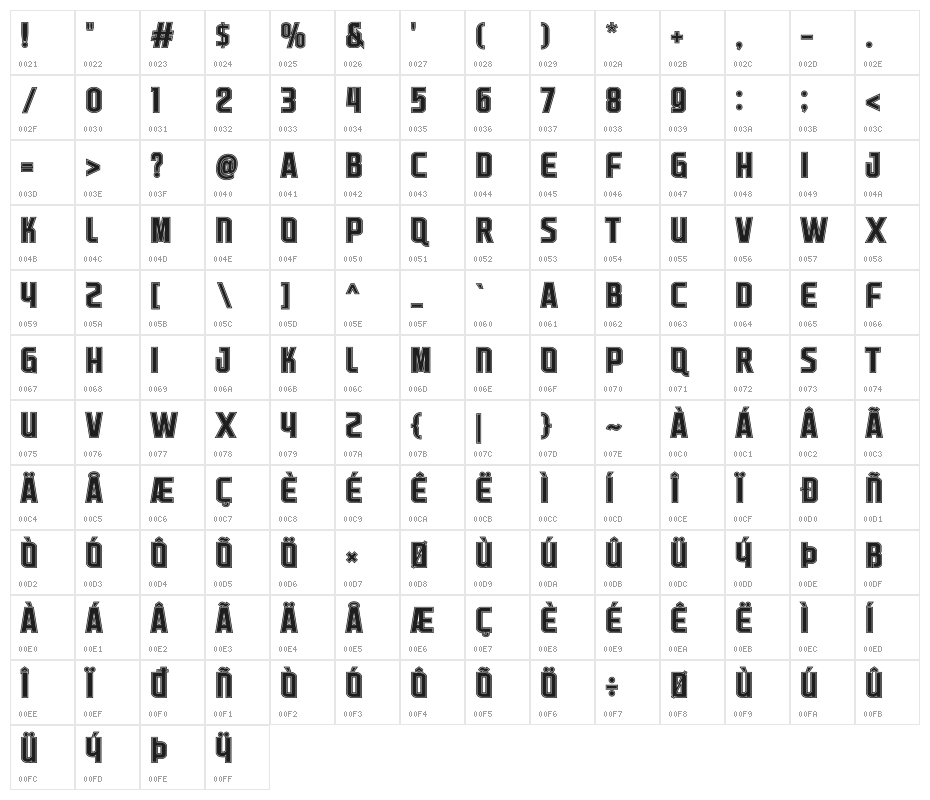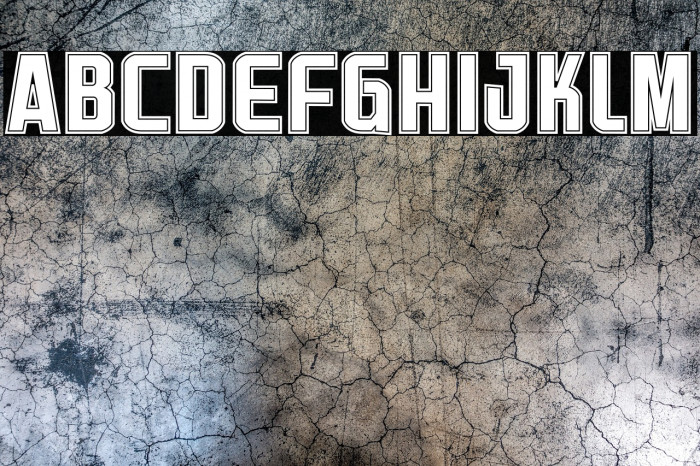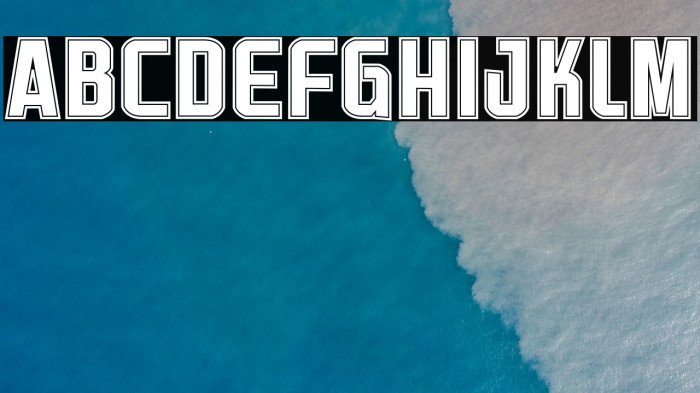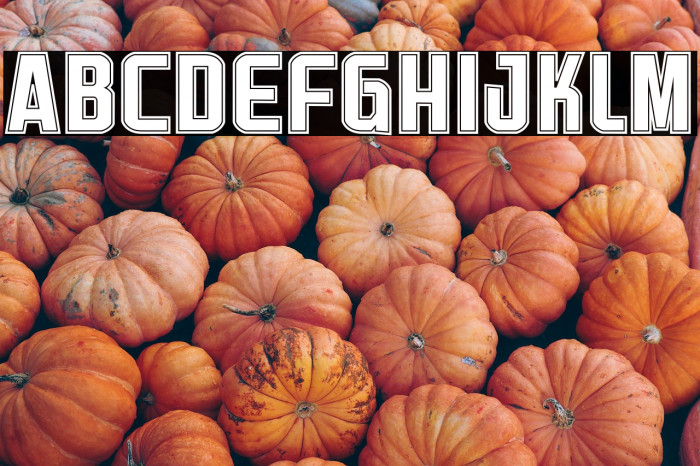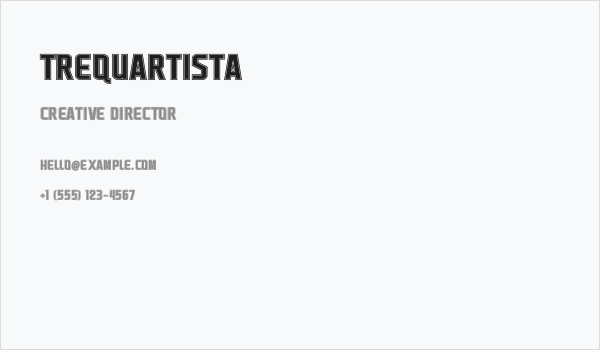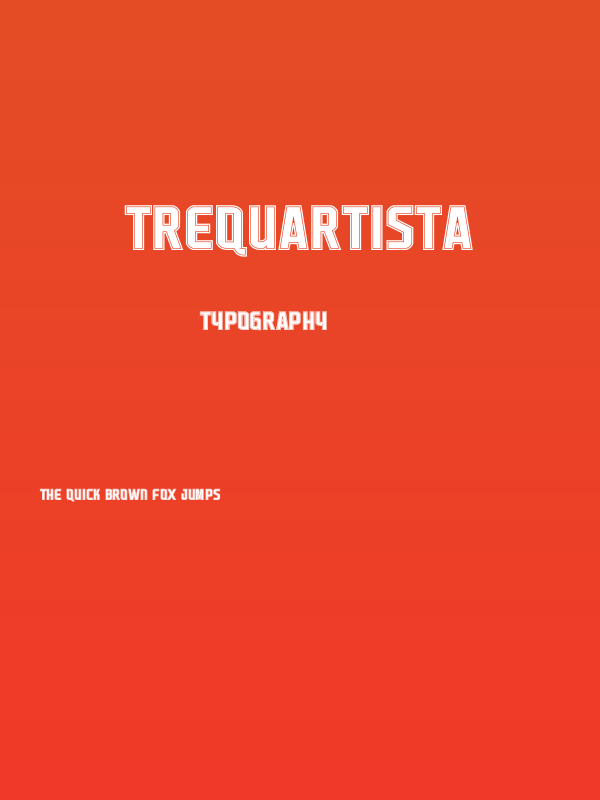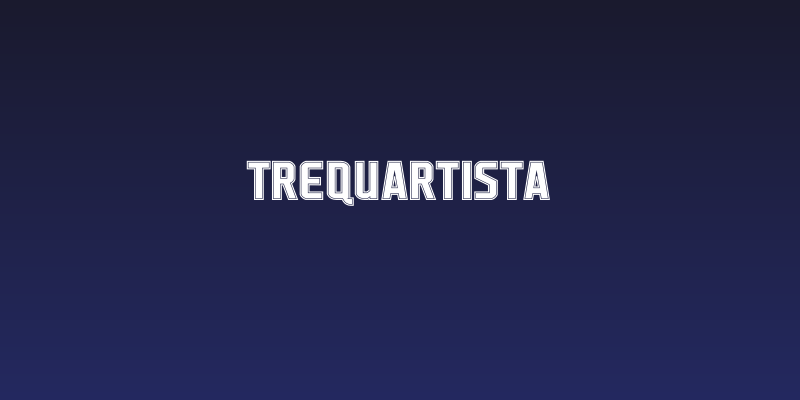
Trequartista Font
Trequartista Description
A bold, decorative font with a strong outline and geometric shapes, suitable for impactful designs.
| Proposed Projects | Posters, headlines, logos, sports branding. |